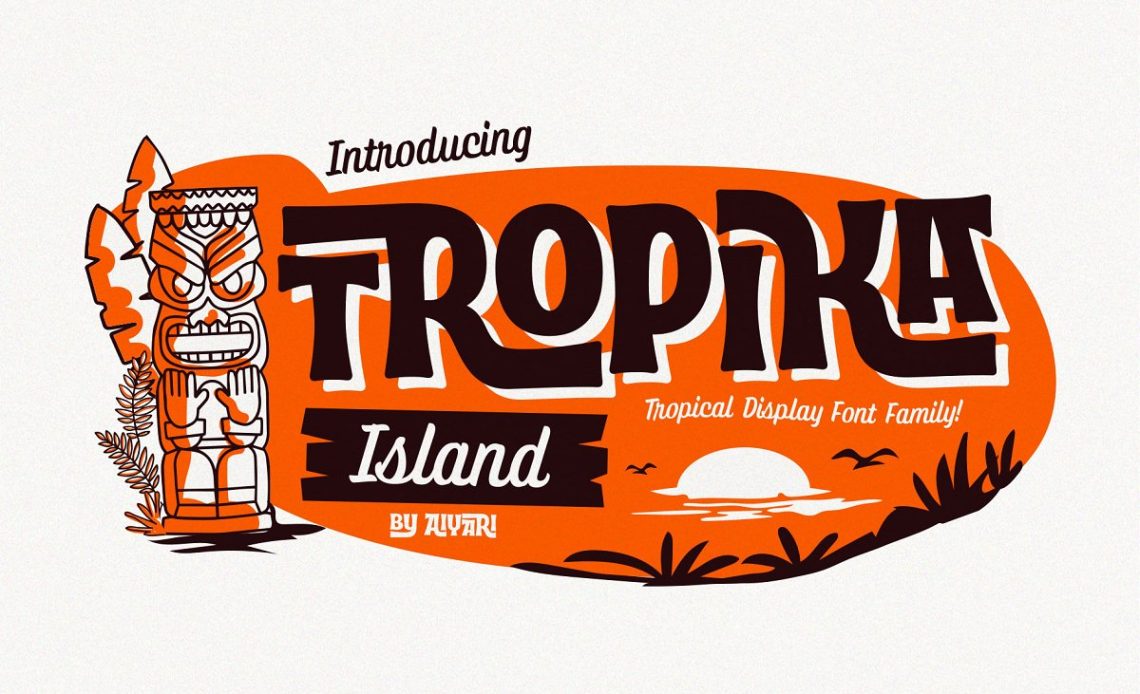
Experience the perfect blend of tropical and midcentury tiki art with the Tropika Island Font Family, a new and captivating display font family created by Ricky Rinaldi. With its unique Tropika Interlock feature, this font family offers 3224 pairs of ligatures, making it a perfect choice for those who want to add an exotic and eye-catching touch to their design projects.
The Tropika Island Font Family comes with three distinct Otf Files - Tropika Island-Int, Tropika Island-ScriptCasual, & Tropika Extras, offering you an opportunity to create stunning designs with ease. The Tropika Script, which is also included in this font family, comes with open type features ligatures, Terminal forms, Initial forms, Stylistic Alternates, and many more.
Whether you are working on a logo, apparel design, book cover, printed quotes, or any other design project, the Tropika Island Font Family is sure to elevate your designs to new heights. With its unique stylistic sets, you can easily create custom designs that stand out from the crowd.
Overall, Tropika Island Font Family is an excellent choice for designers who want to add a touch of the exotic and tropical to their design projects. Don't miss out on this opportunity to create stunning designs that stand out from the crowd.